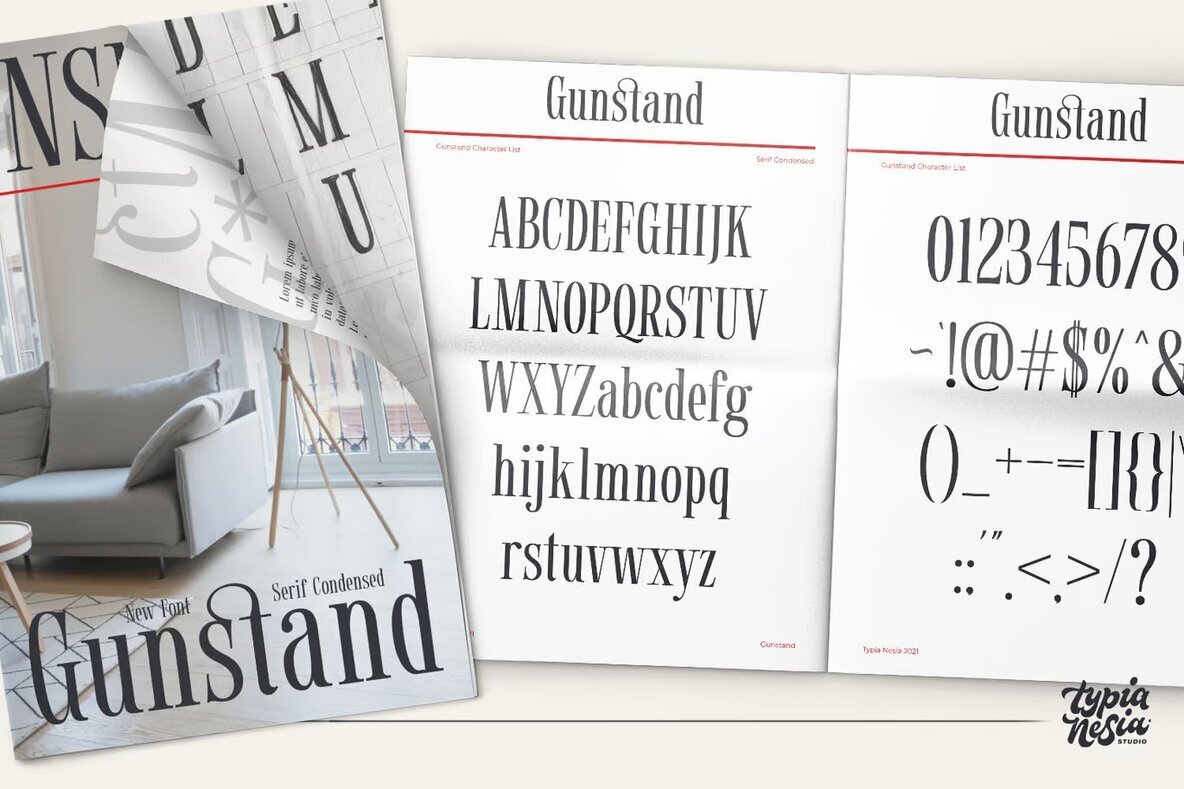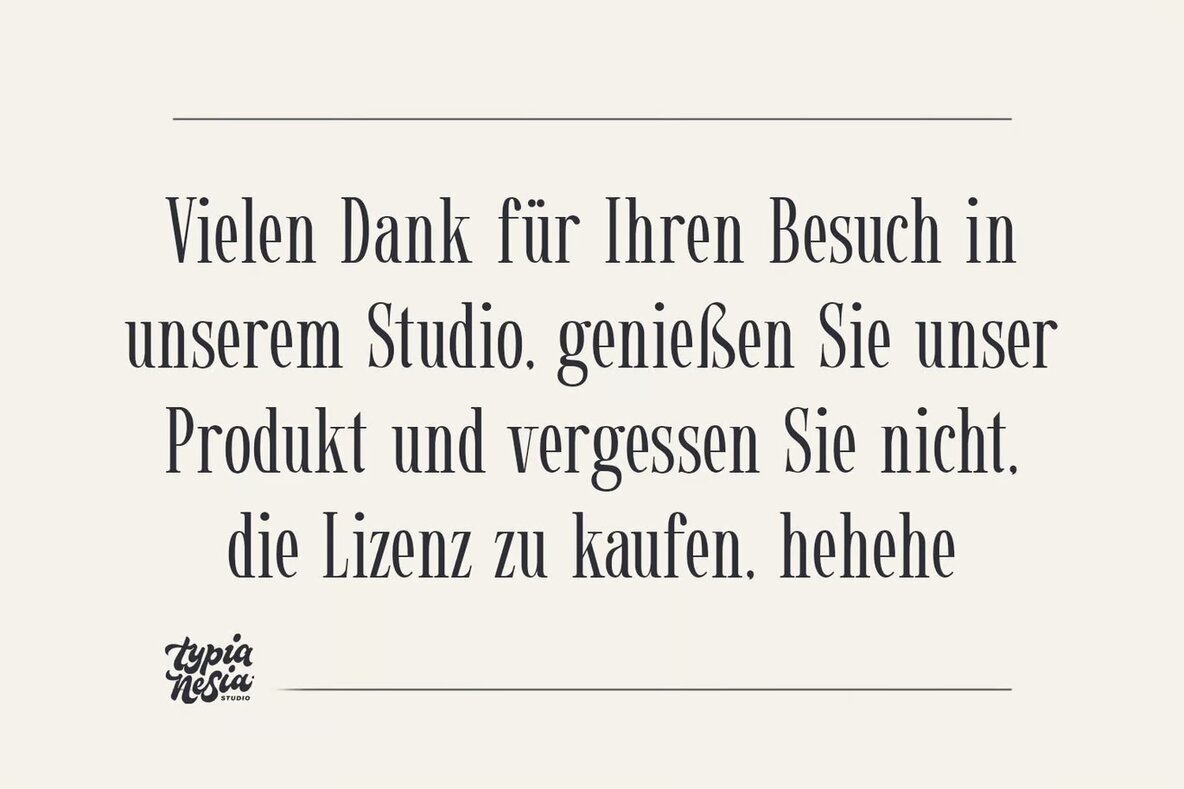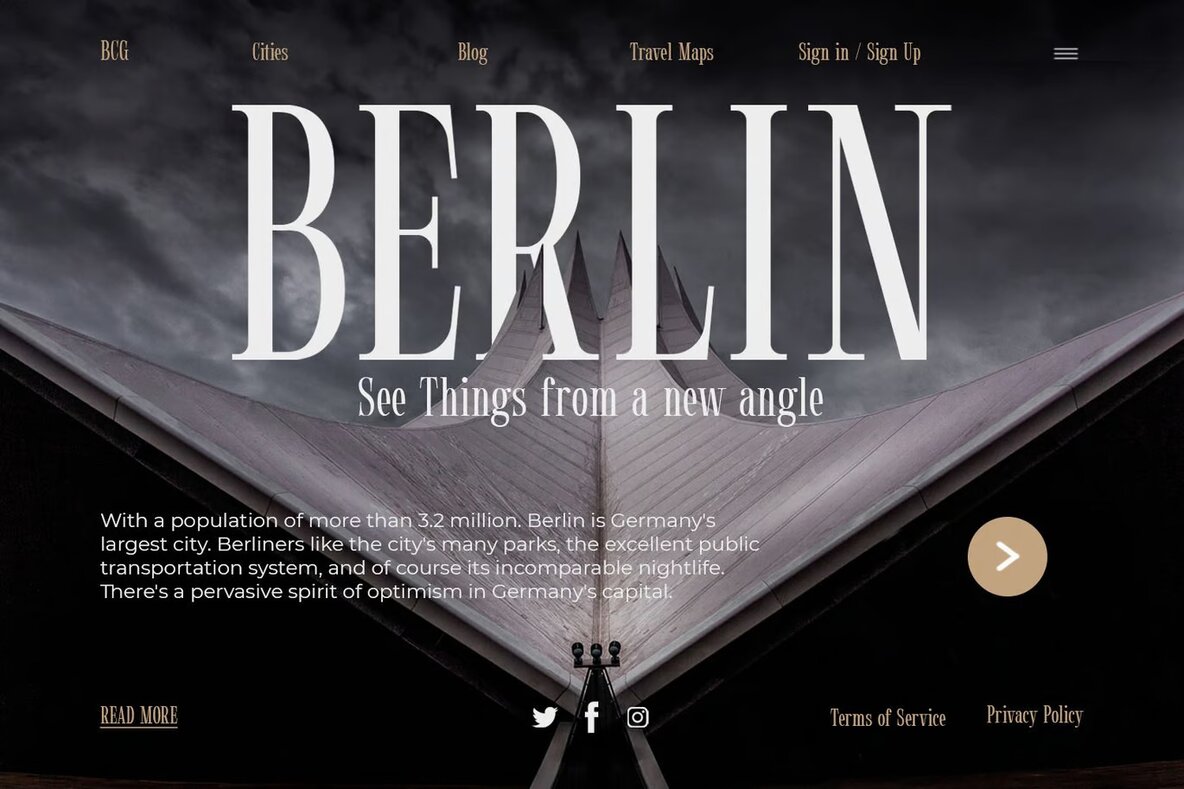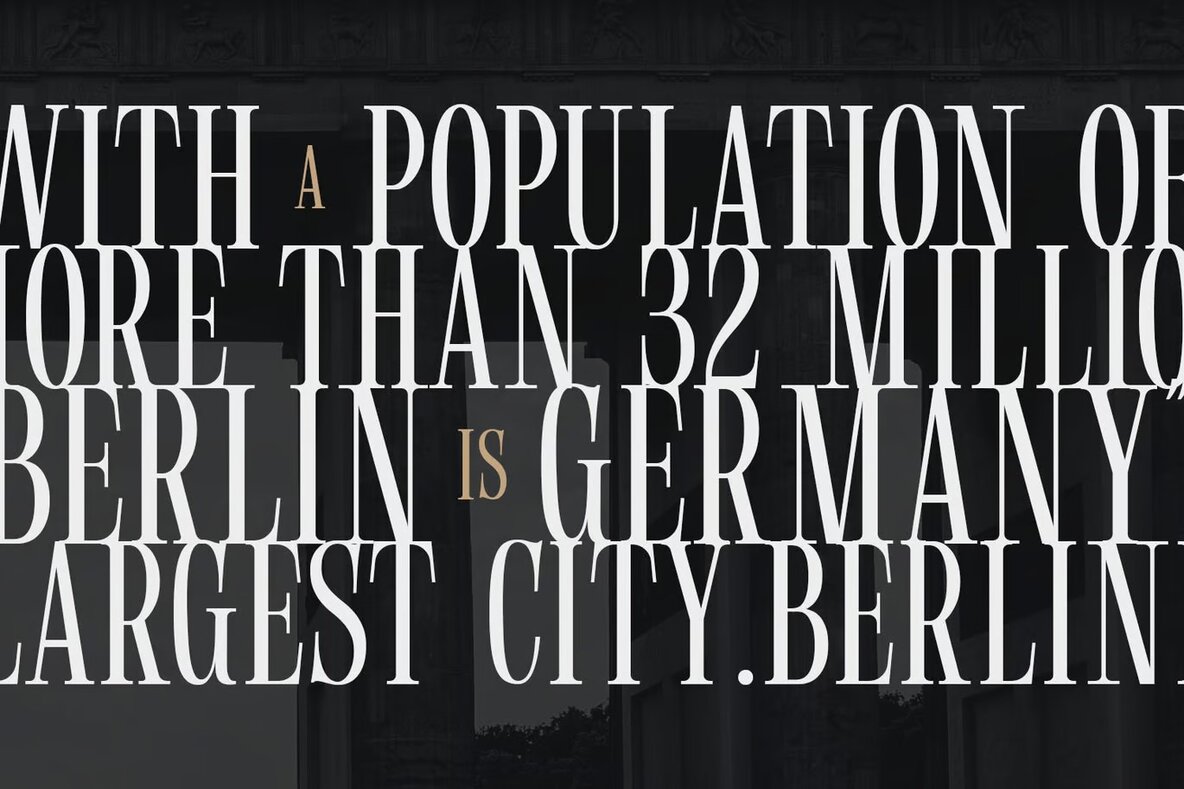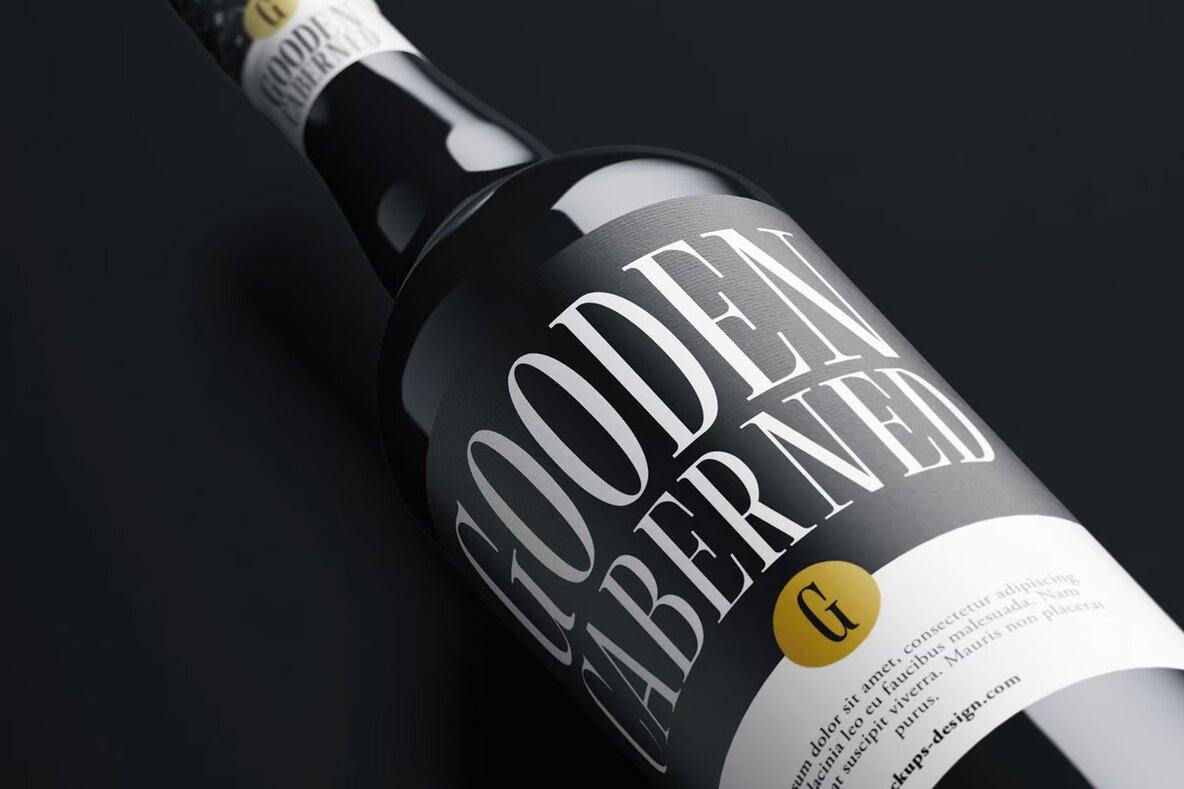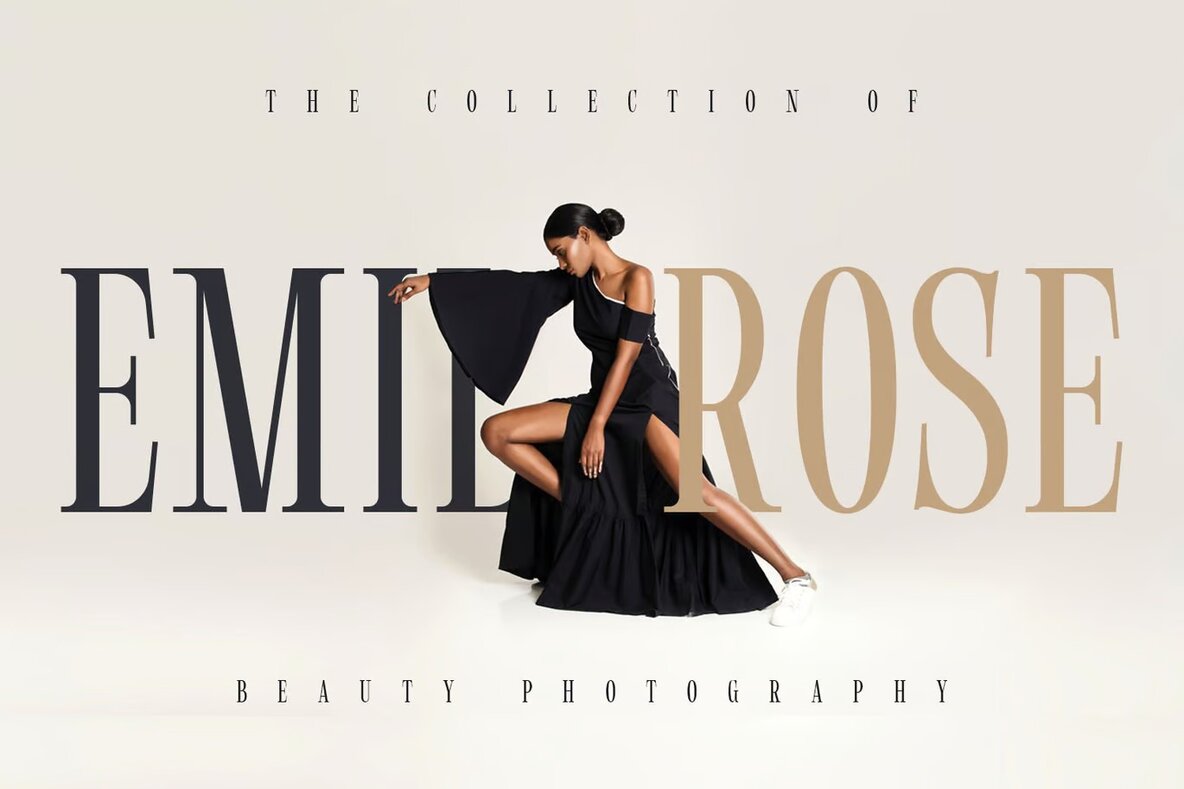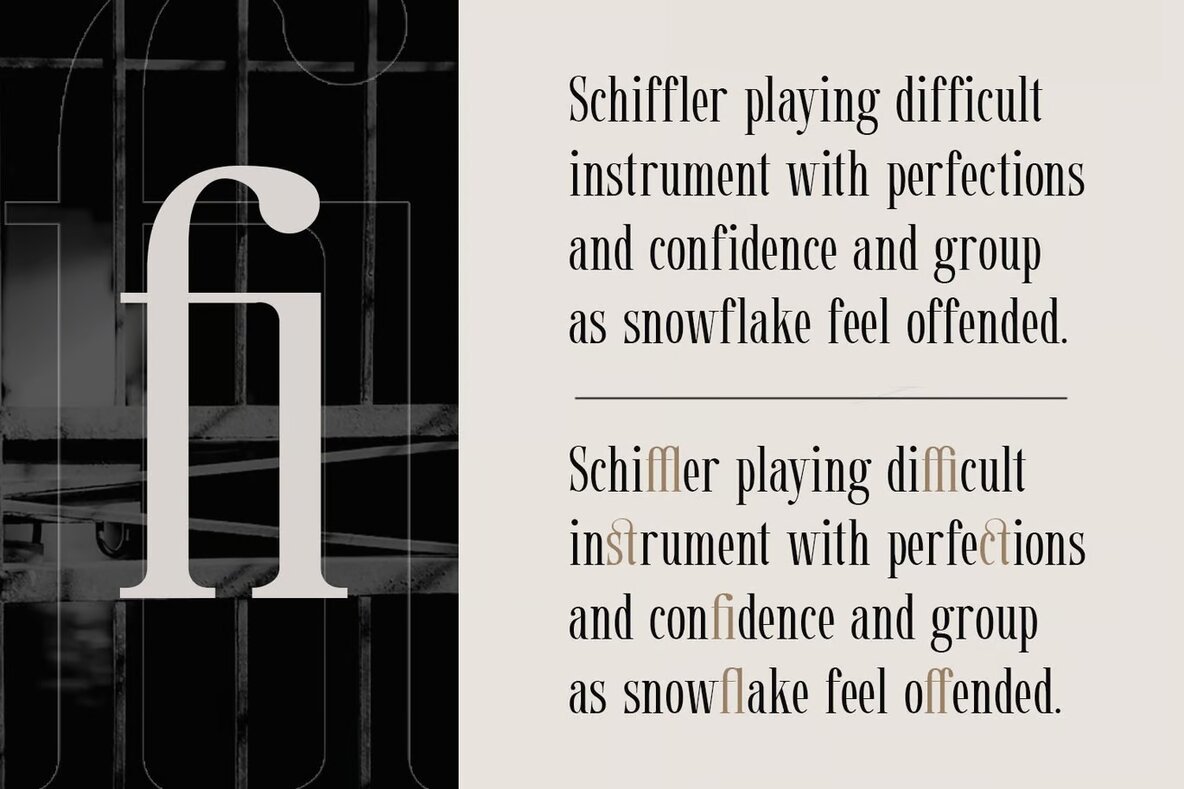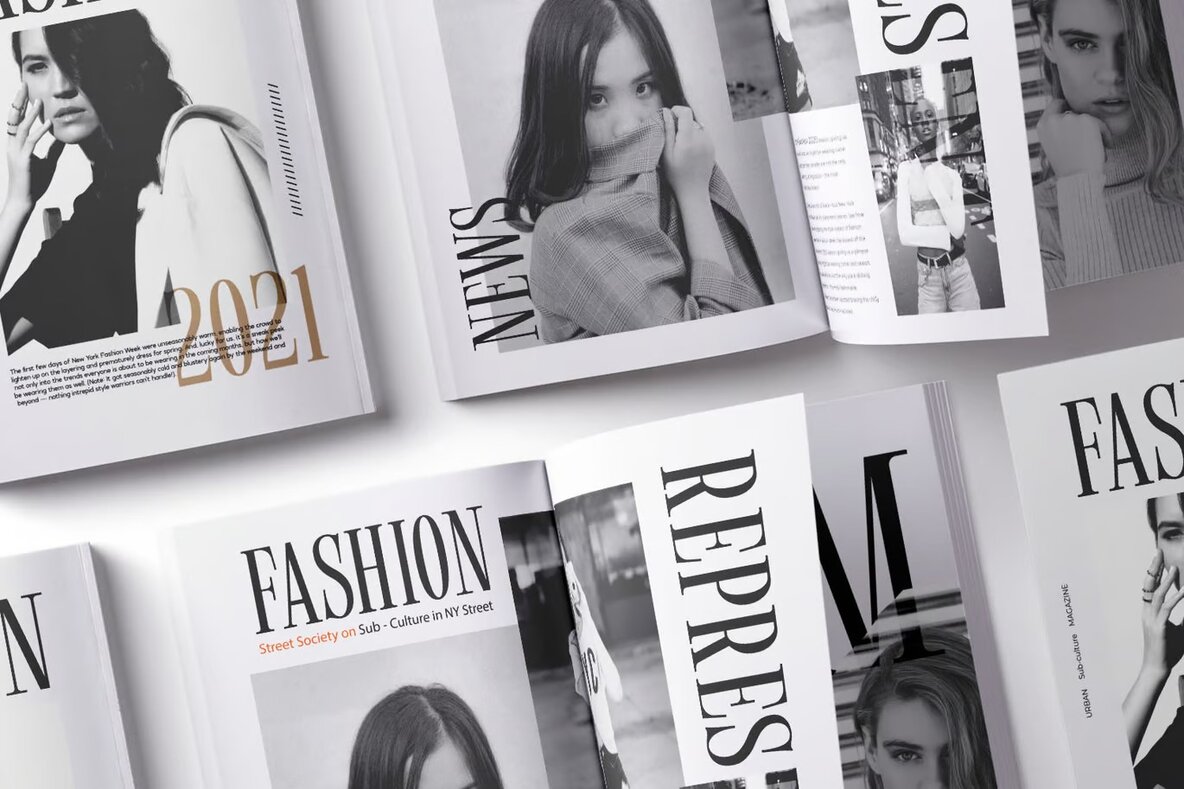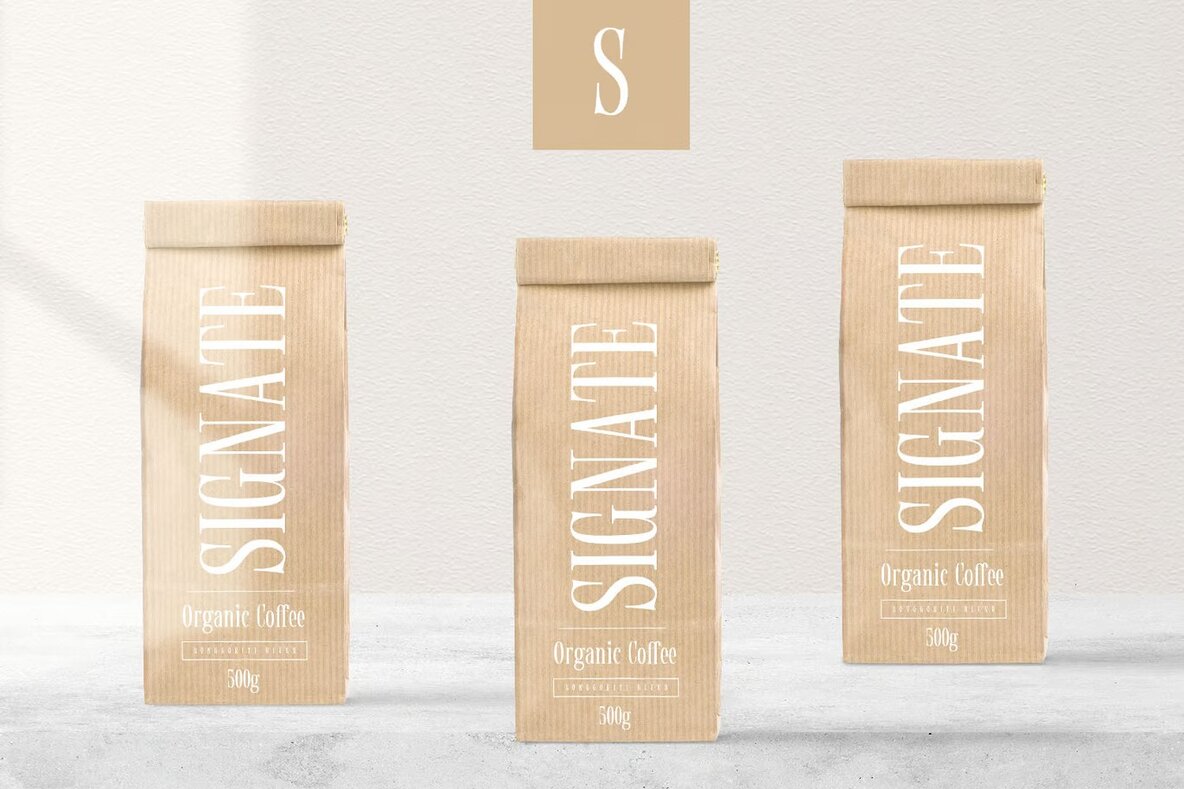
Gunstand Font
Gunstand
Gunstand is an elegant and classy condensed serif font designed to enhance a variety of projects. This refined typeface is ideal for luxury logo branding, editorial designs, and stationery. Its sophisticated style also suits modern fashion materials, salon beauty promotions, and feminine advertising. Whether used for websites, blogs, or card invitations, Gunstand adds a touch of elegance.
This font is versatile in application, perfectly fitting art quotes, home decor, and book or cover titles. Additionally, it serves well in projects related to special events, such as weddings or birthdays. Gunstand's unique design makes it a valuable asset for any designer looking to add sophistication to their work.